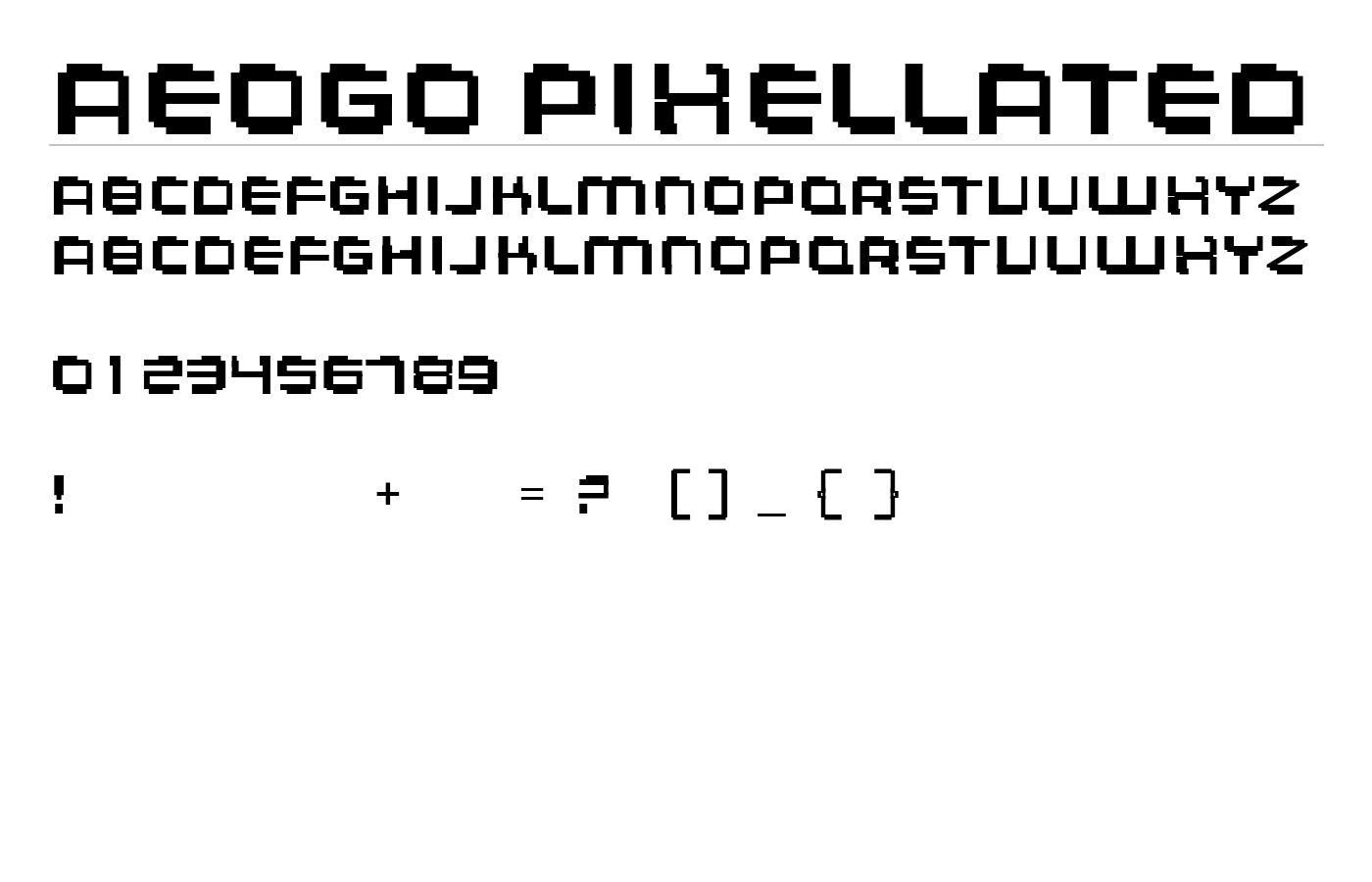
Aeogo Pixellated is a bold, geometric sans serif font characterized by a pixelated, blocky style that evokes classic video game and digital screen aesthetics. Its uniform weight, squared edges, and monospaced feel make it ideal for retro, tech, and gaming-themed designs, adding a playful yet structured personality. This font works best for logos, headlines, posters, and any digital projects where a nostalgic yet modern pixel art vibe is desired.
Aeogo Pixellated Font
About Aeogo Pixellated Font